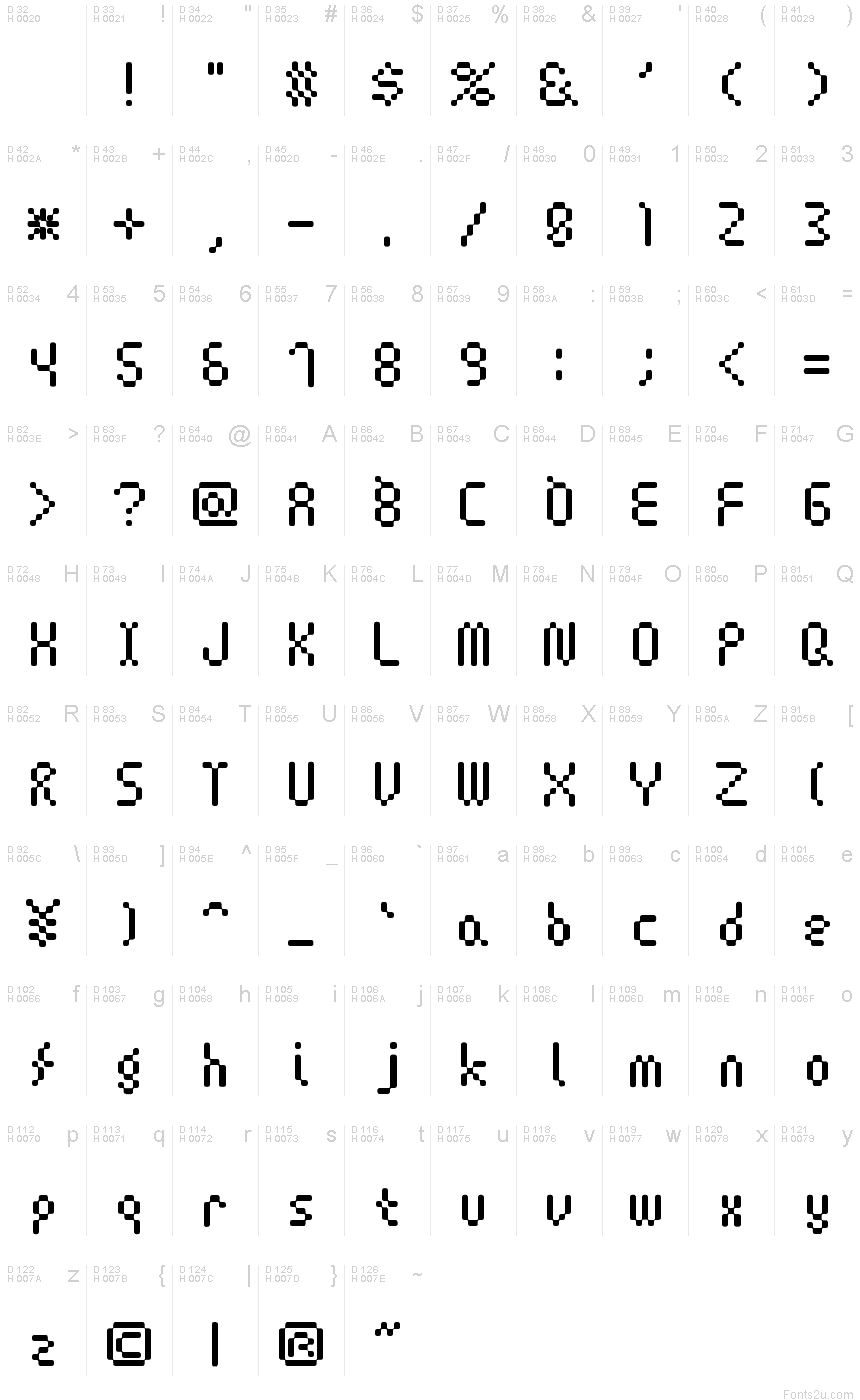
Amoebic
Amoebic font by BRIDGEco is a free digital display typeface that looks like pixels melted into soft, rubbery blocks. Its square grid skeleton is wrapped in rounded, inky corners, giving every letter a juicy, modular feel—almost like retro LED text seen through a fisheye lens. The rhythm is tight and upright, so even with its quirky blobs, Amoebic still reads clearly at larger sizes.
Using Amoebic, you can crank up the character on game titles, sci‑fi posters, tech event branding, YouTube thumbnails, stickers, or bold website hero graphics. This free font shines when it’s big and bold, letting those pill-shaped curves and chunky counters really lock together. For supporting text, pair Amoebic with a simple geometric sans in a lighter weight to keep the focus on its playful, digital squish.